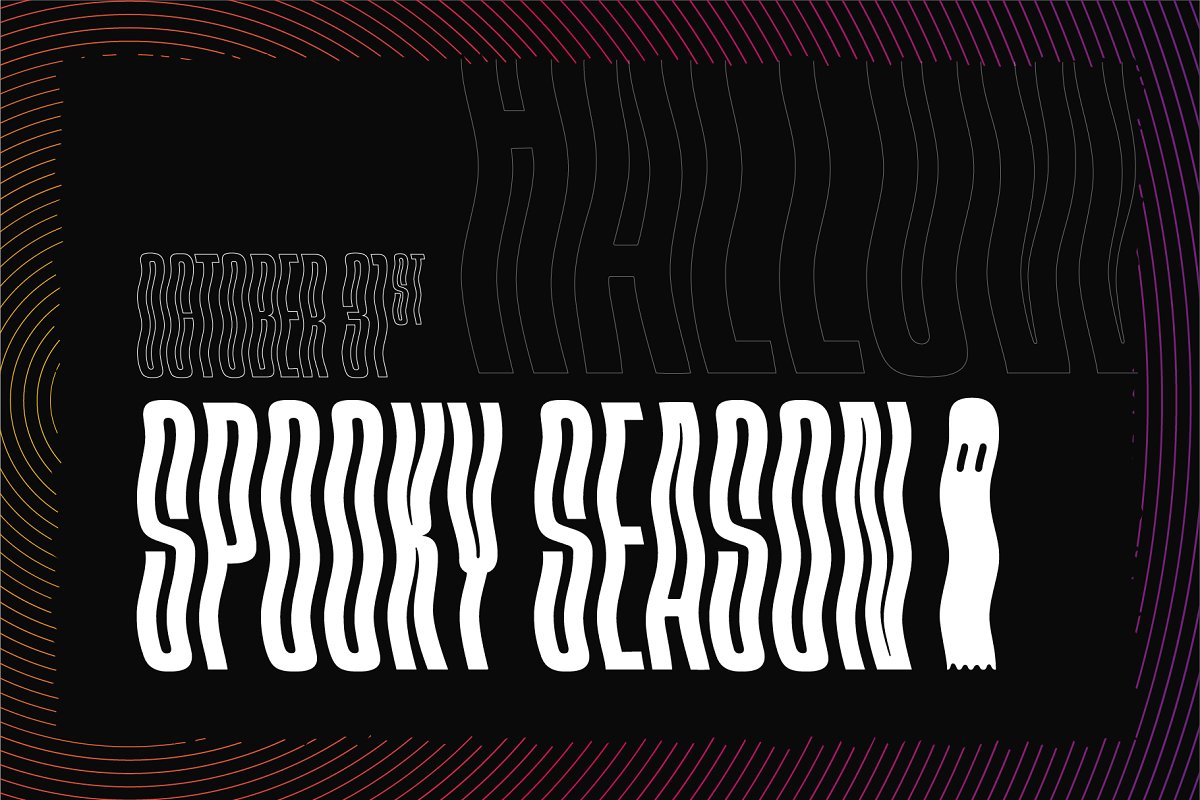
About the Oscilus Font
Oscilus is a condensed, wavy display face, Perfect for headlines, your next CBD oil packaging design, and pretty much anything halloween related,